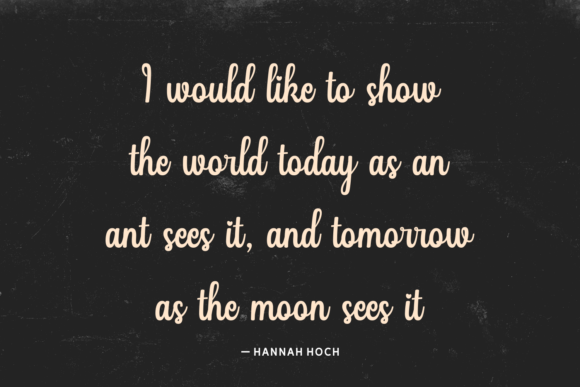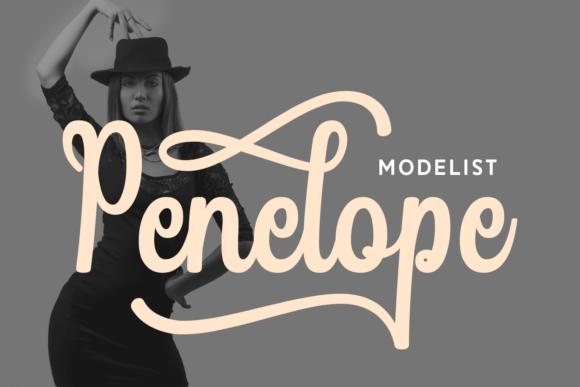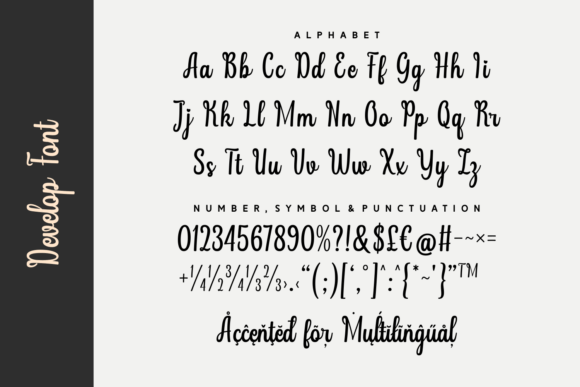
Unleash Your Creativity with Develop Font: A Bold Handwritten Script Font
In the world of typography, a font can make or break a design. For designers and crafters looking to make a statement, Develop Font is an excellent choice. This bold handwritten script font boasts a powerful personality and fluid motion, making it perfect for a wide range of creative projects. In this article, we’ll dive into the features and benefits of Develop Font, and explore how it can elevate your designs.
A Font with Personality
Develop Font is a bold and expressive font that exudes confidence and energy. Its thick strokes and retro-inspired vibe give it a unique personality that’s hard to ignore. The font’s handcrafted look brings a sense of authenticity to any design, making it perfect for brands looking to establish a personal connection with their audience.
Key Features of Develop Font
- Bold and Expressive: Develop Font features thick strokes and expressive swashes that add a touch of elegance to any design.
- Retro-Inspired Energy: The font’s retro vibe gives it a unique personality that’s perfect for brands looking to stand out.
- Handcrafted Look: The font’s handcrafted look brings a sense of authenticity to any design.
- Modern Styling: Despite its retro inspiration, Develop Font has a modern feel that ensures it feels fresh and impactful.
Develop Font is versatile and can be used for a wide range of creative projects, including:
- Logos: The font’s bold and expressive nature makes it perfect for logos that need to make a statement.
- Posters: Develop Font is ideal for posters that require a bold and eye-catching headline.
- Apparel: The font’s handcrafted look and modern styling make it perfect for apparel designs that need to stand out.
- Motivational Branding: Develop Font’s powerful personality and retro-inspired energy make it perfect for motivational branding projects.
Why Choose Develop Font?
With so many fonts available, why choose Develop Font? Here are just a few reasons:
- Unique Personality: Develop Font has a unique personality that’s hard to ignore.
- Versatility: The font can be used for a wide range of creative projects.
- Authenticity: The font’s handcrafted look brings a sense of authenticity to any design.
- Modern Styling: Despite its retro inspiration, Develop Font has a modern feel that ensures it feels fresh and impactful.
Tips for Using Develop Font
Here are a few tips for getting the most out of Develop Font:
- Use it Boldly: Develop Font is designed to make a statement, so don’t be afraid to use it boldly.
- Experiment with Swashes: The font’s expressive swashes can add a touch of elegance to any design.
- Pair it with Other Fonts: Develop Font can be paired with other fonts to create a unique and interesting design.
Develop Font is a bold handwritten script font that boasts a powerful personality and fluid motion. With its thick strokes, expressive swashes, and retro-inspired energy, it’s perfect for logos, posters, apparel, and motivational branding. The font’s handcrafted look brings authenticity, while its modern styling ensures it feels fresh and impactful. Whether you’re a designer or crafter, Develop Font is an excellent choice for anyone looking to make a confident statement with a personal touch.